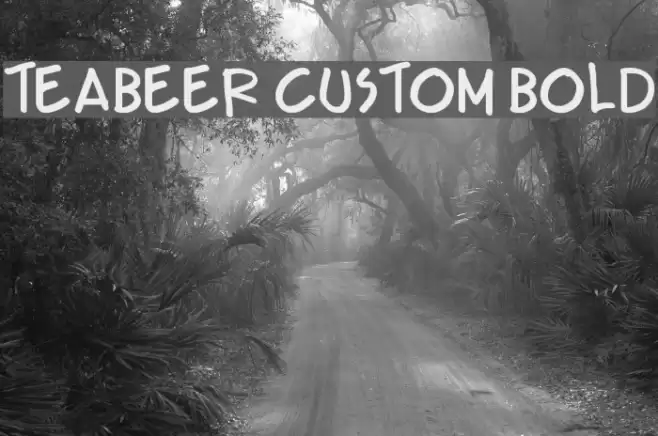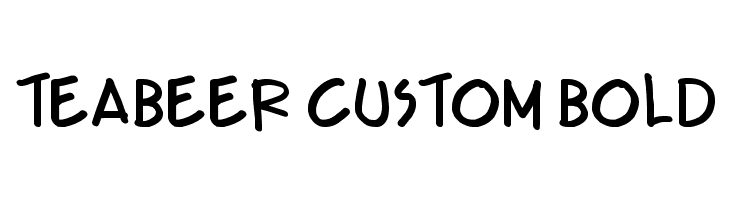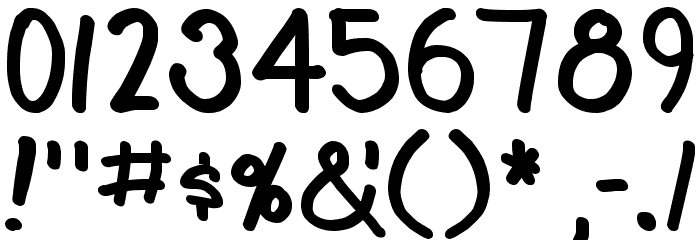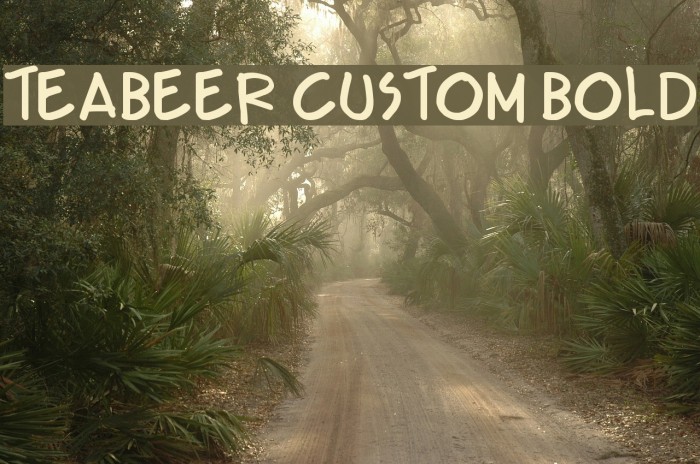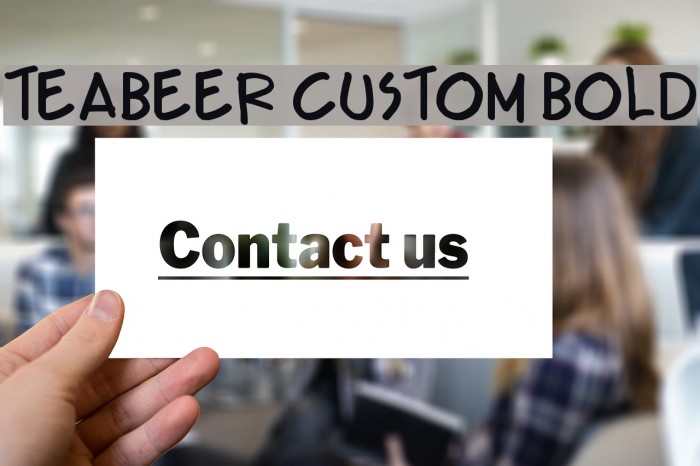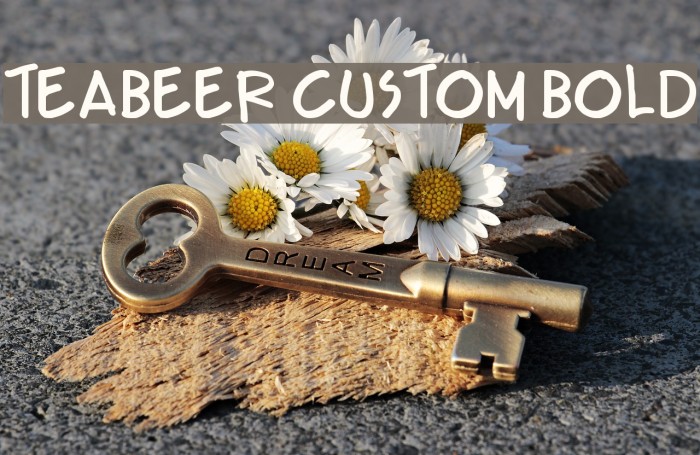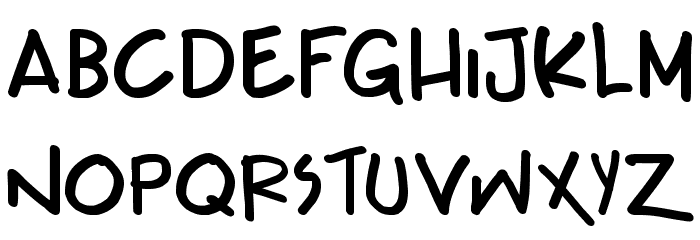
Teabeer Custom Bold Font
Teabeer Custom Bold Description
This font features a bold and playful handwritten style, characterized by its thick strokes and casual, informal appearance. The letters are slightly irregular, giving it a dynamic and lively feel. The uppercase and lowercase characters maintain a consistent style, with rounded edges and a friendly demeanor. The numerals and special characters follow the same playful aesthetic, making the font suitable for creative and informal projects. Its boldness ensures readability while adding a touch of personality to any design.
A bold, playful handwritten font with a lively and informal style from Cartoon fonts.
- Proposed Projects: Ideal for children's books, playful branding, casual invitations, and creative posters.
- Overall Style: Playful